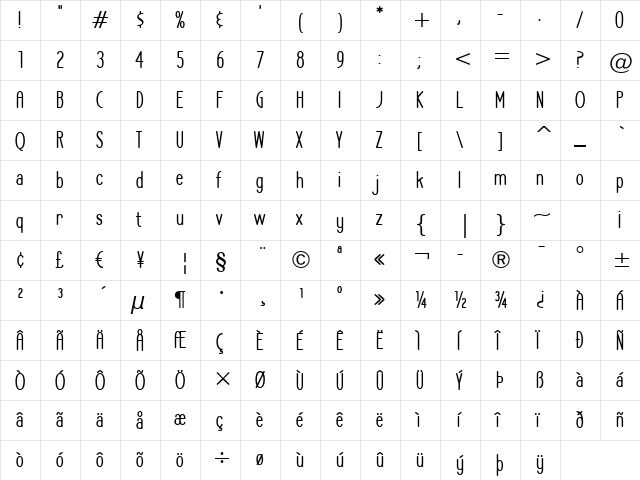
LA Headlights BTN Cond Bold Font Preview
Design Context for LA Headlights BTN Cond Typeface
LA Headlights BTN Cond offers clean, dependable letterforms without strong stylistic allegiance, making it a practical choice for designers who need flexibility. The heavy weight commands attention and anchors typographic hierarchies. The condensed width makes it efficient for tight spaces without sacrificing legibility.